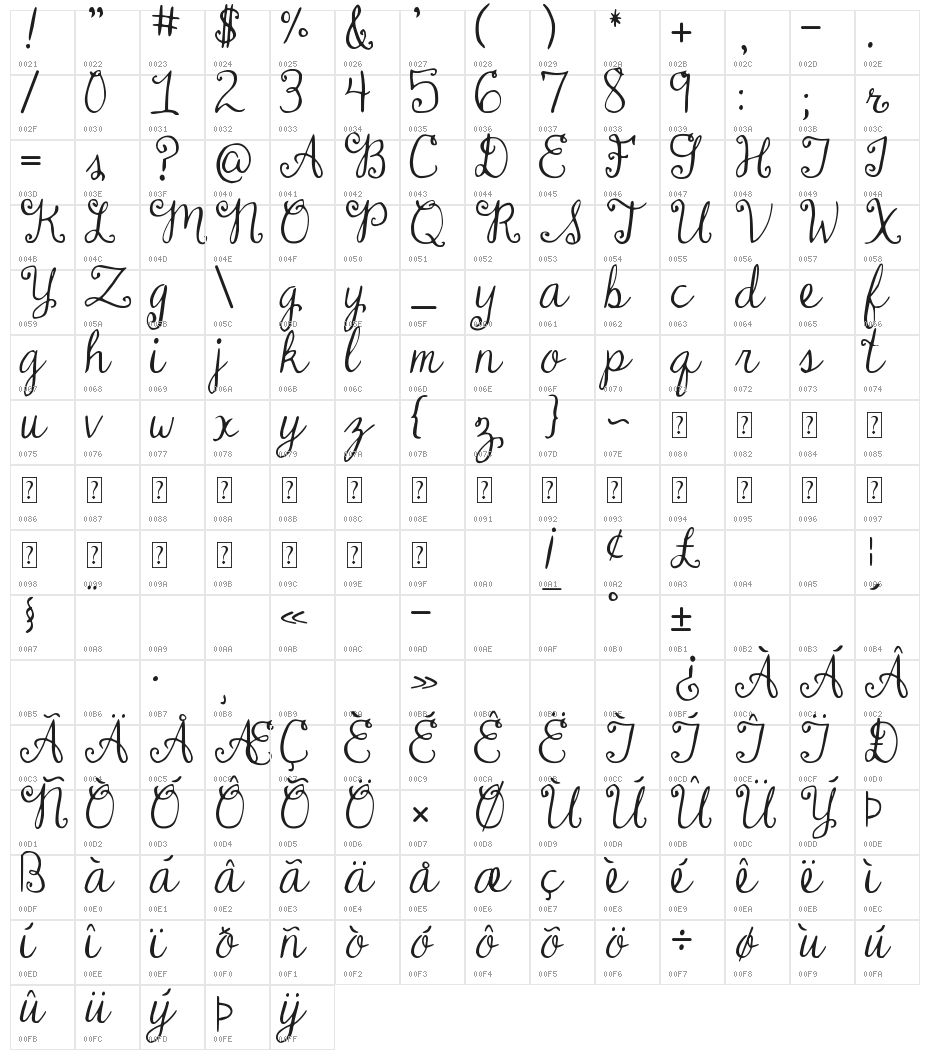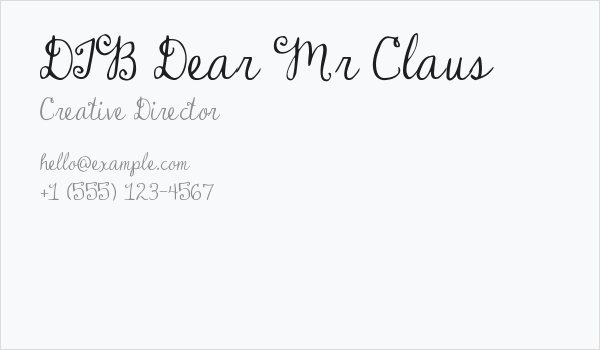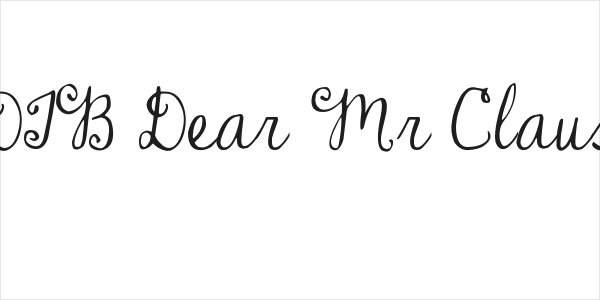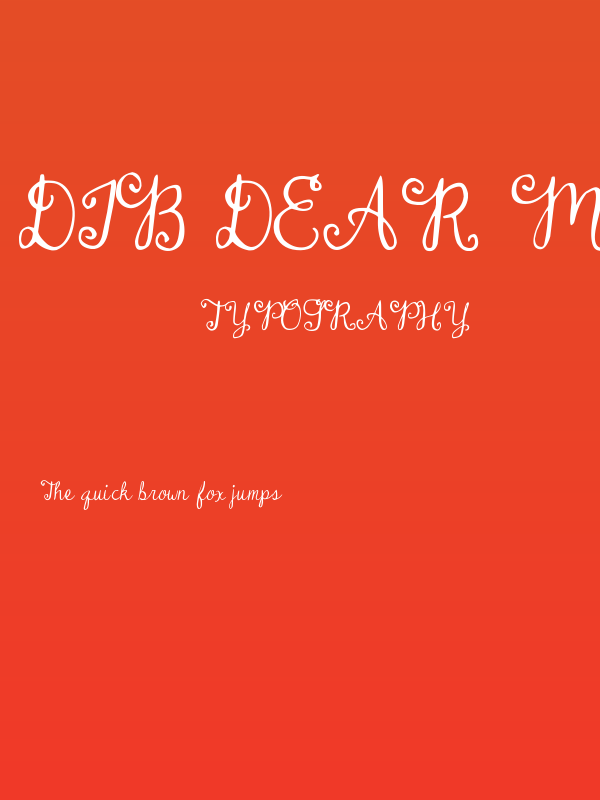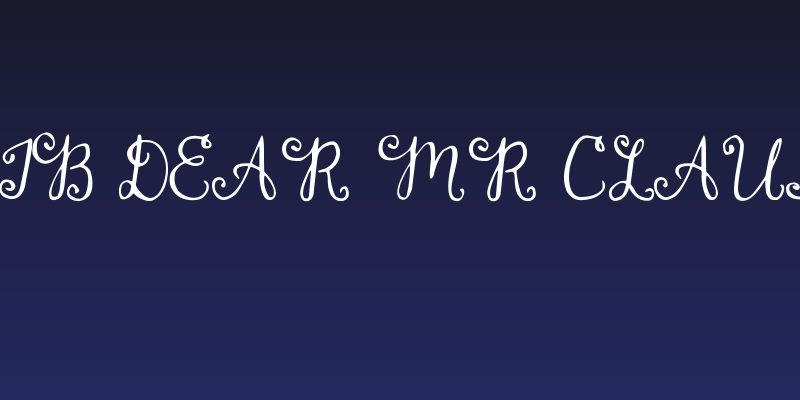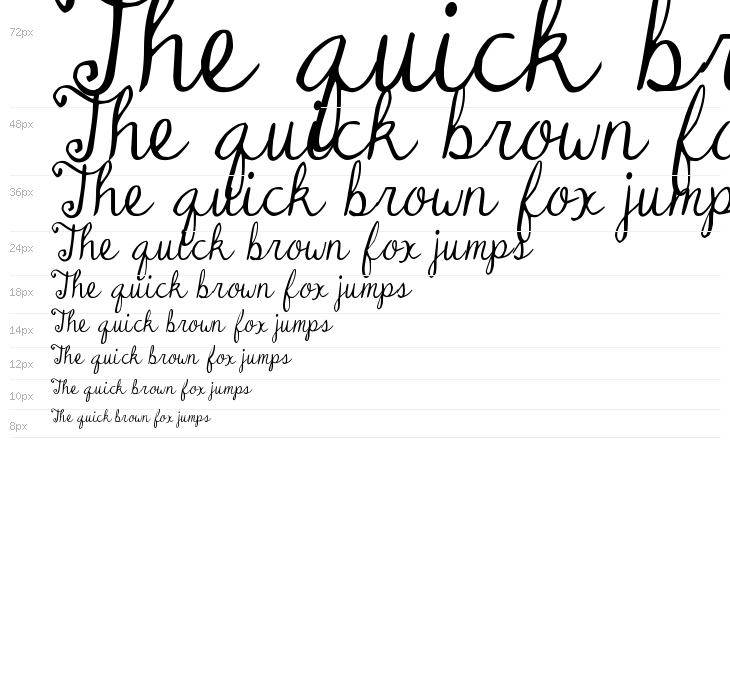
DJB Dear Mr Claus Font
DJB Dear Mr Claus Description
This font features a whimsical and playful script style, characterized by its curly and looping letterforms. The uppercase letters are adorned with decorative swirls, giving them a festive and cheerful appearance. The lowercase letters maintain a consistent flow, with a slight slant that adds to the handwritten feel. Numbers and special characters are crafted with the same playful curves, ensuring a cohesive look across all characters. The overall design is light-hearted and expressive, making it ideal for projects that require a touch of fun and creativity.
| Proposed Projects | Perfect for holiday cards, invitations, playful branding, and children's book covers. |